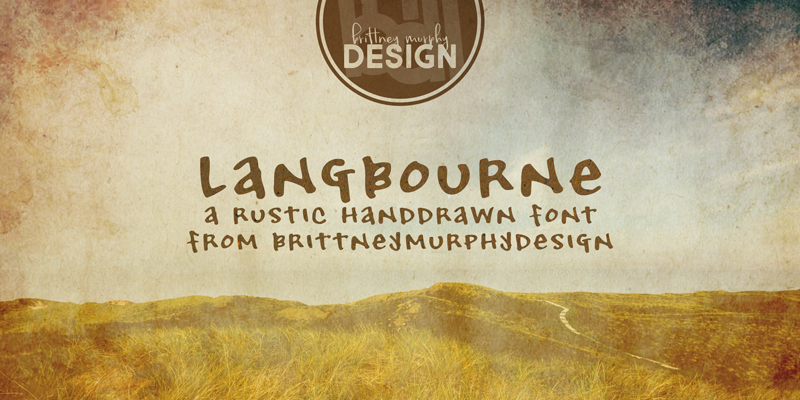
Font name: | Langbourne |
Author: | Brittney Murphy Design |
Note by Brittney Murphy Design | |
Langbourne is a rustic font handdrawn with a dip pen and inkwell. Free for personal use ONLY! For commercial use, please purchase a license: https://www.brittneymurphydesign.com/downloads/langbourne-font/ |